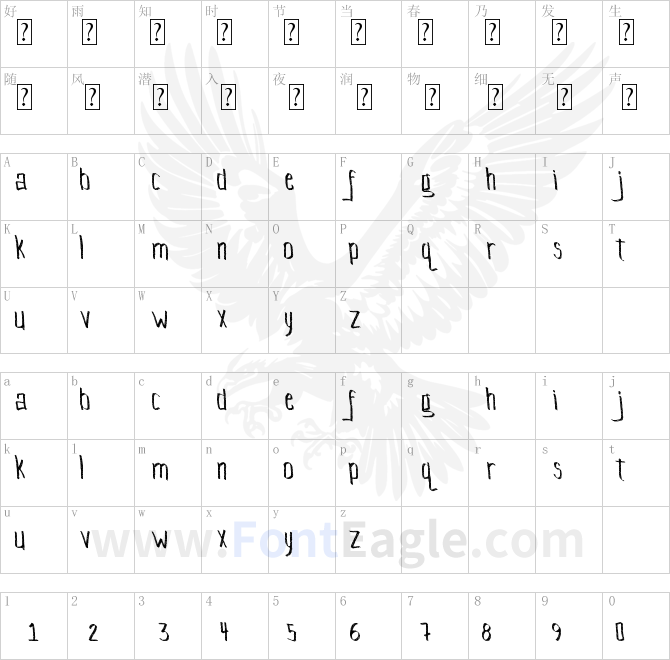
- Font name:Kid On The Mountain
- Font Subfamily ID:Kid On The Mountain:Version 1.00
- Font Full Name:Kid On The Mountain
- Font Version:Version 1.00 August 5, 2016, initial release
- Postscript:KidOnTheMountain